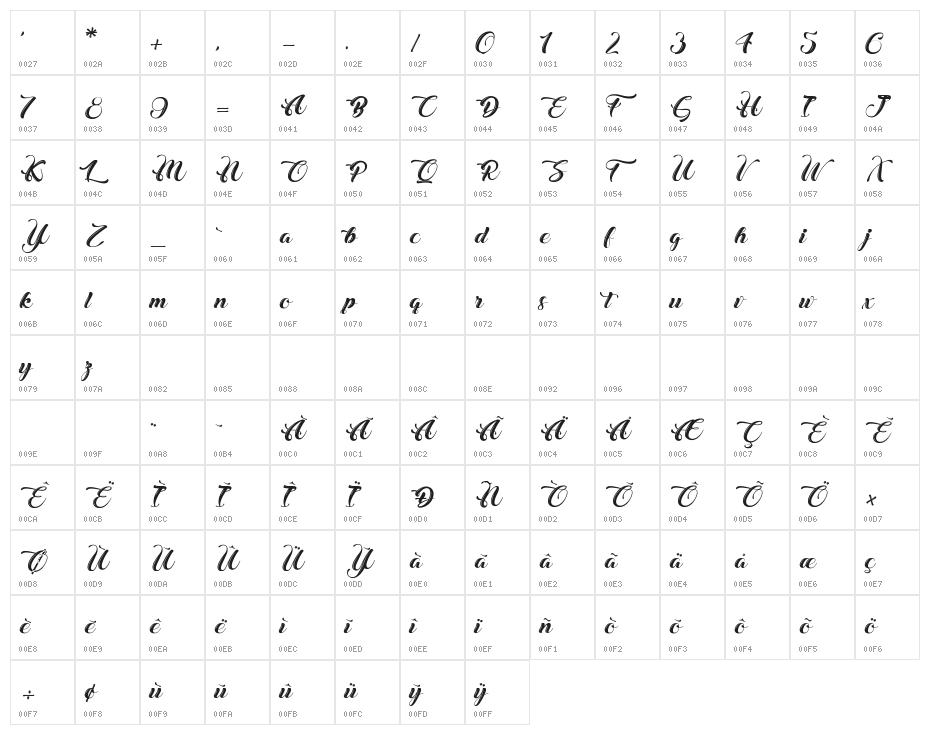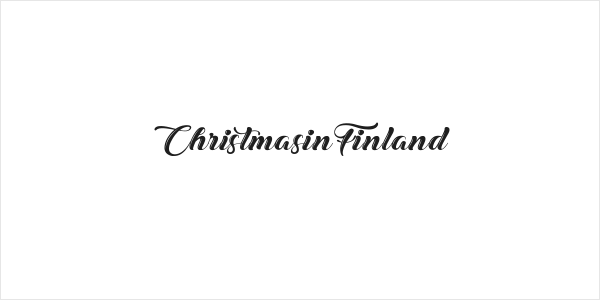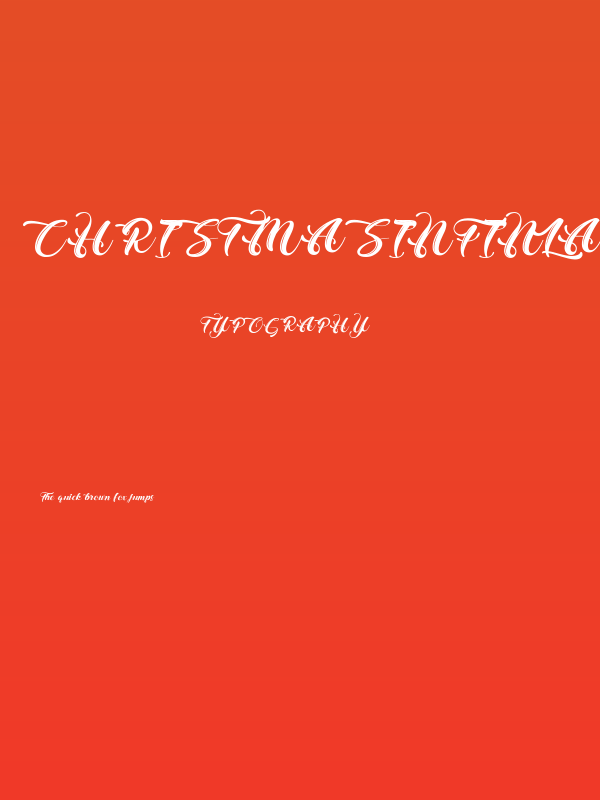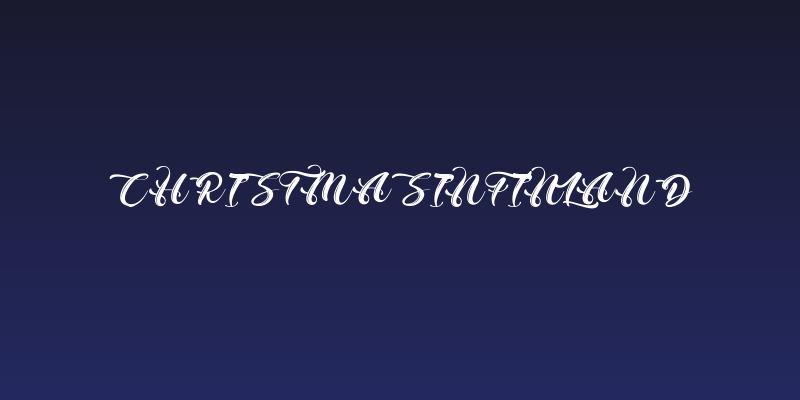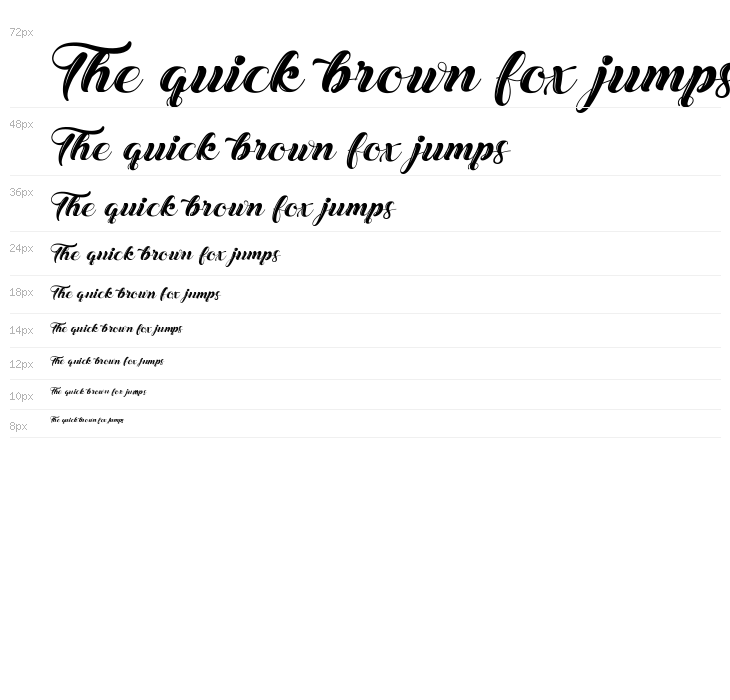
ChristmasinFinland Font
ChristmasinFinland Description
This elegant script font features a flowing, cursive style with intricate swashes and flourishes. The uppercase letters are particularly ornate, with elaborate loops and curves that give a sense of sophistication and grace. The lowercase letters maintain a consistent style, with smooth connections and a slightly slanted orientation. The numerals are designed to match the overall aesthetic, with a balanced mix of curves and straight lines. Special characters are included, adding versatility to the font. The overall appearance is reminiscent of traditional calligraphy, making it suitable for formal and decorative purposes.
| Use Case | Headlines, Invitations, Branding |
| Proposed Projects | Ideal for wedding invitations, greeting cards, elegant branding, and decorative headings. |